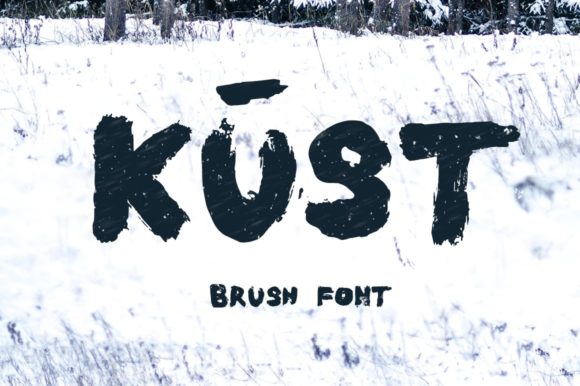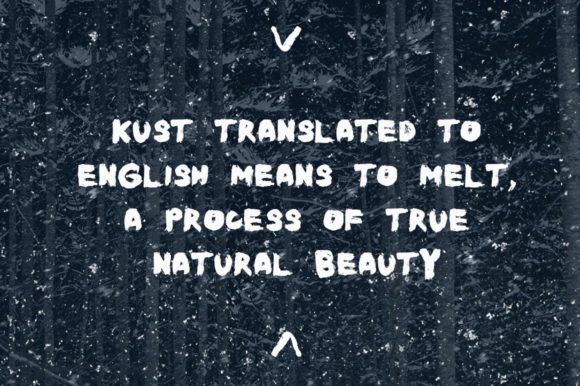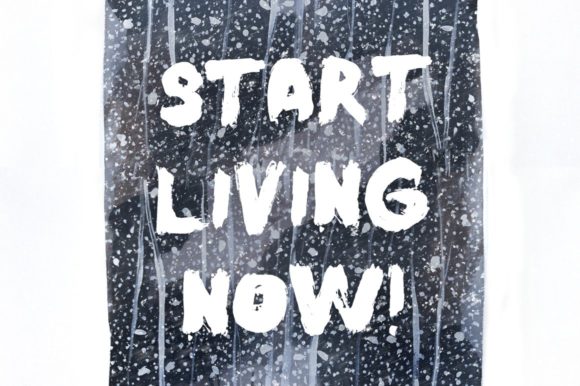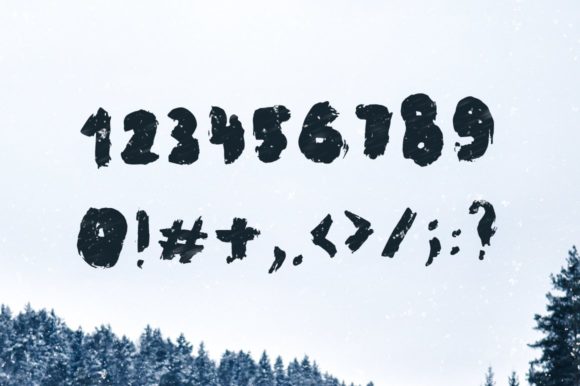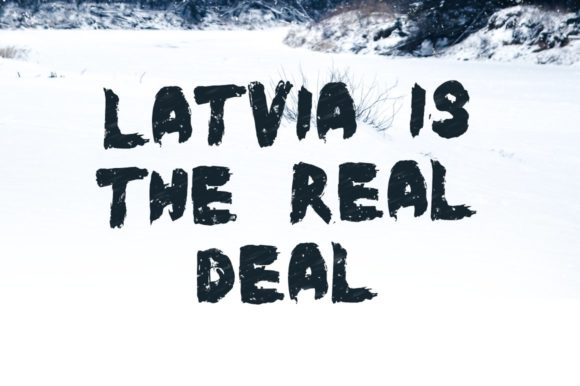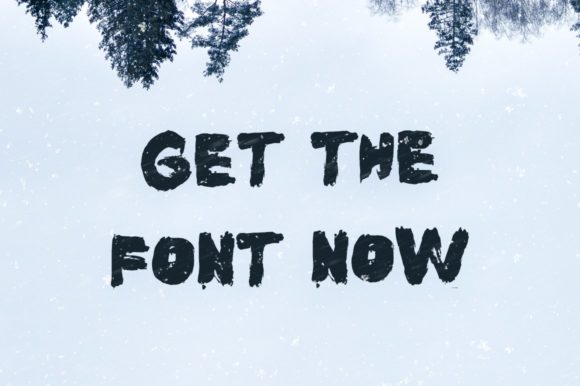
Kust Font
About Kust Font
Kust is a bold and chunky handwritten font, created with the help of a thick brush pen. Fall in love with its incredibly unique style and use it to create spectacular designs!